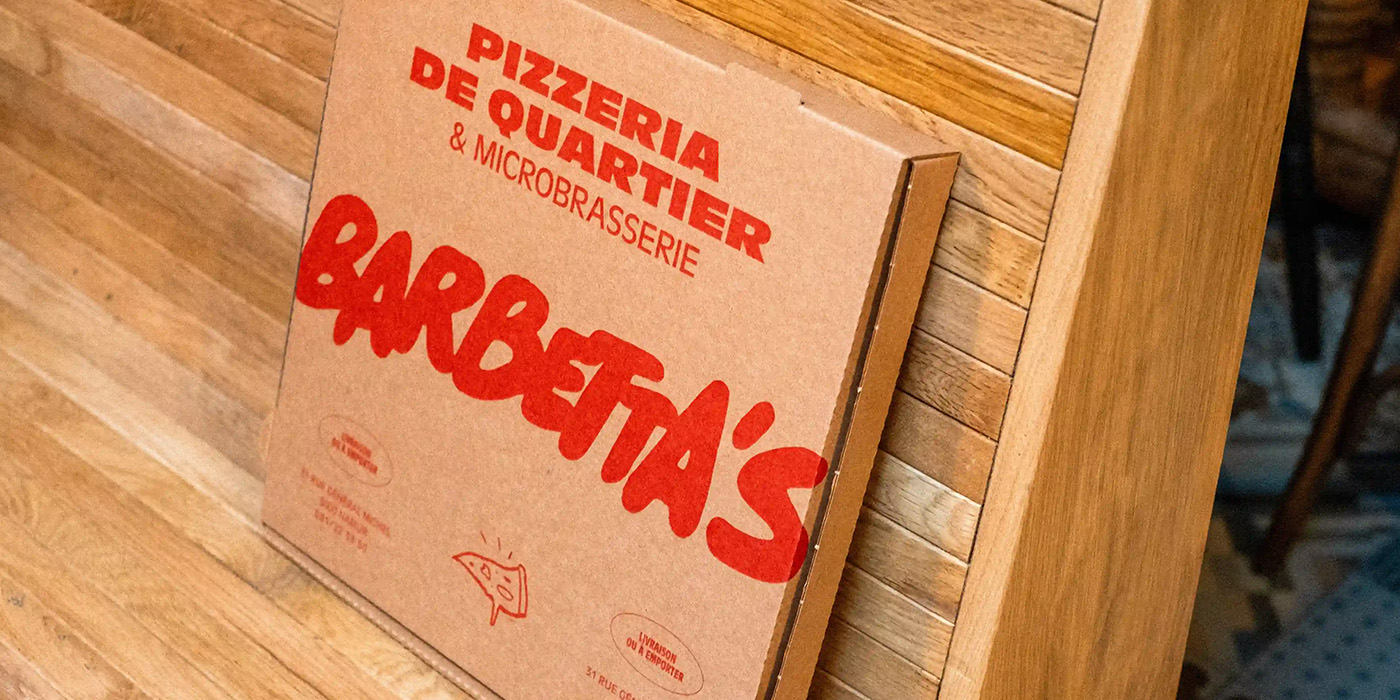
Wherever you are in this world, Italian food is often a synonym of quality, and while this is a win for anyone that wants to make it their business, it can be hard to stand out visually when we already have a certain aesthetic linked to the word “Pizza”. Onion Studio, a Brussels-based branding agency, stood up for the challenge bringing an unusual mix into the table for the branding of Barbetta’s.
Barbetta’s is a pizzeria and microbrewery owned by siblings Romain and Elise, who wanted to step away from being a classic family-owned business. They succesfully partnered with Onion to craft a visual identity that could win over the hearts (and stomachs) of their community in Namur, Belgium.
They wanted to avoid typical Italian clichés, instead they took a different route: vintage american dinners. This transcontinental connection of aesthetics created a charming effect that reflected the welcoming atmosphere at Barbetta’s, not only for their charming decor, but also because of the hospitality of their owners. Their flexible visual identity expands through their packaging, advertisement and website design.
The logo for Barbetta’s is a stunning custom lettering work, where the chunky letters contrast over clean layouts, adding a funky twist to the visual language. Antique Olive was choosen as the main font for the project, a humanist sans-serif typeface designed by Roger Excoffon in the 1960s, characterized by its clean lines, even spacing, and slightly condensed width. The font’s name is a nod to its resemblance to the shape of an olive, particularly in the letter “O”.